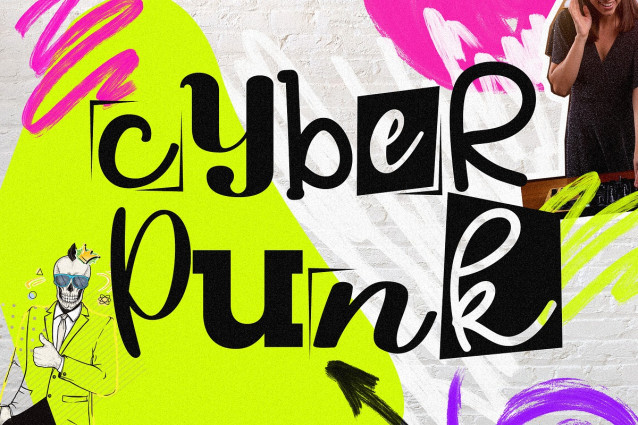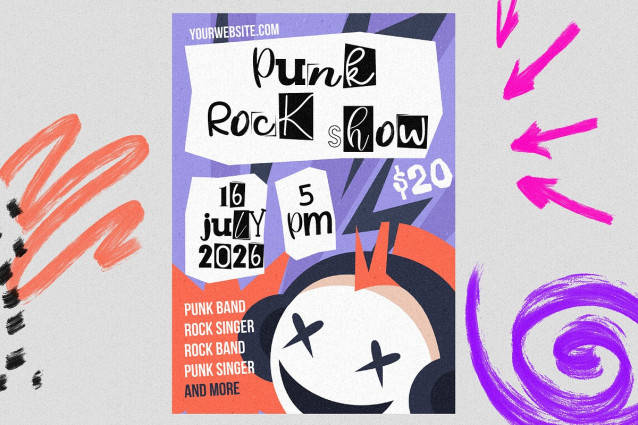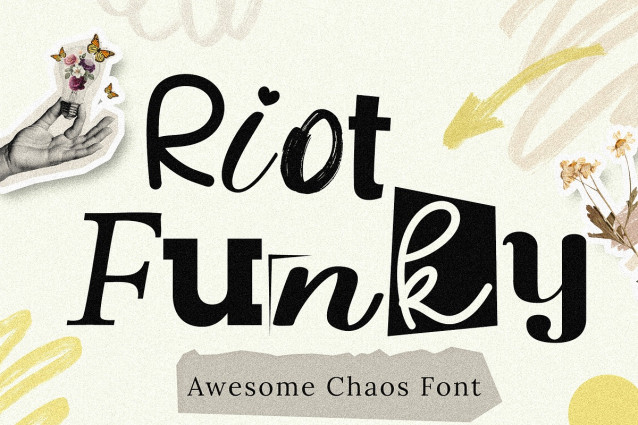
Riot Funky Font
Riot Funky Font – This eclectic, rebellious font is perfect for anyone looking to add an unpredictable touch to their designs. Whether you’re creating posters, templates, or any other type of design, this font will help your work stand out and leave a lasting impression. Don’t settle for ordinary, upgrade to this bold and daring font today and let your designs do the talking.